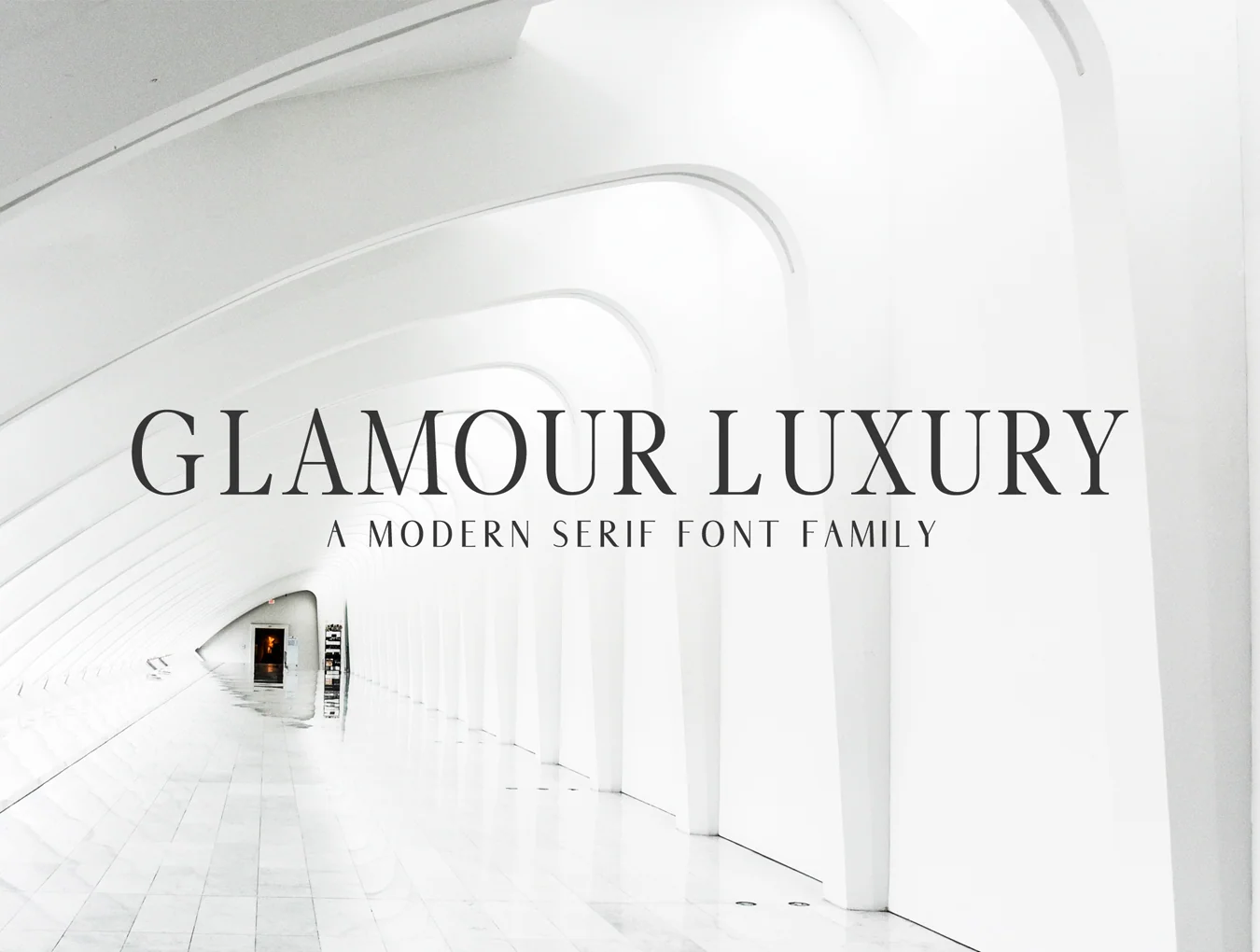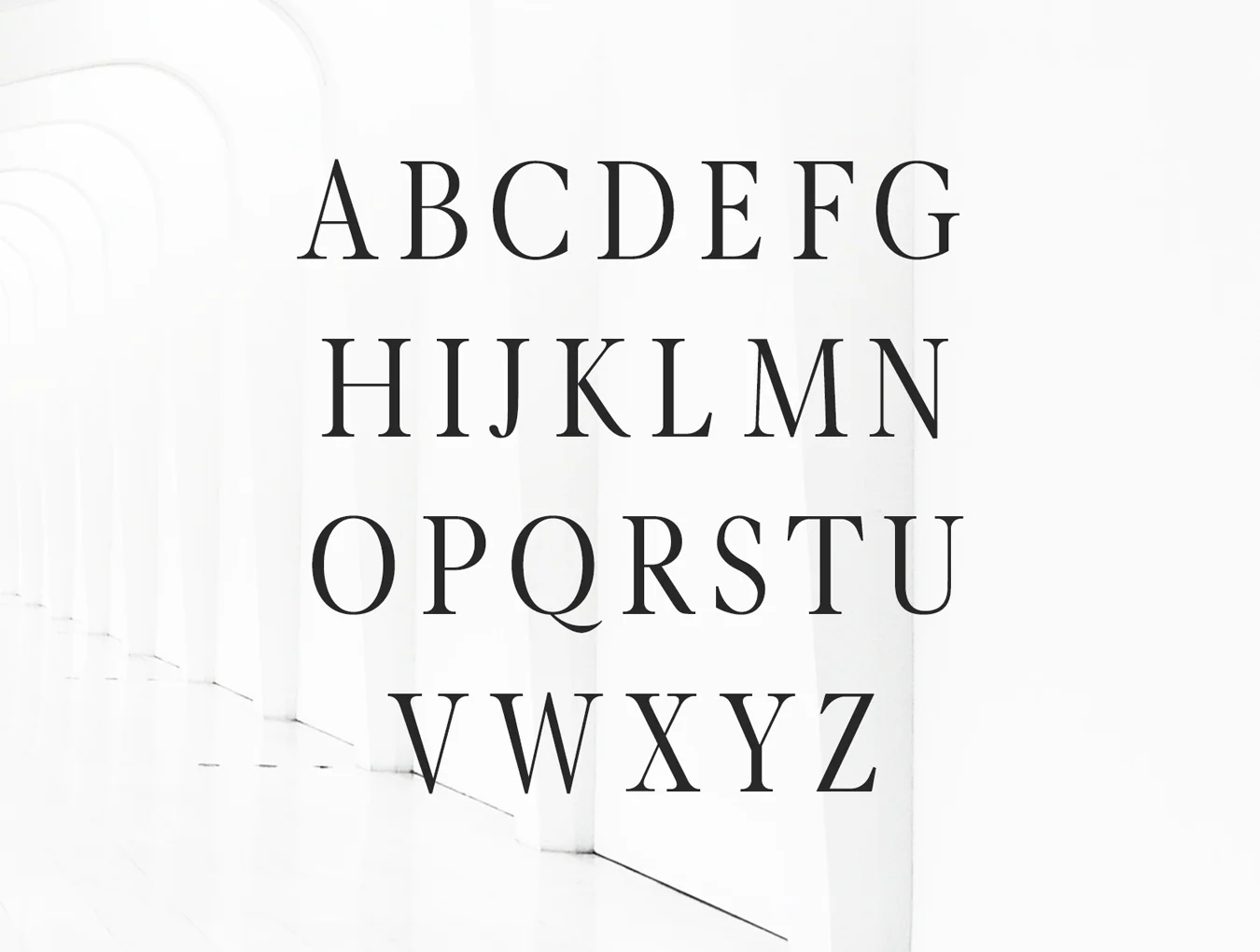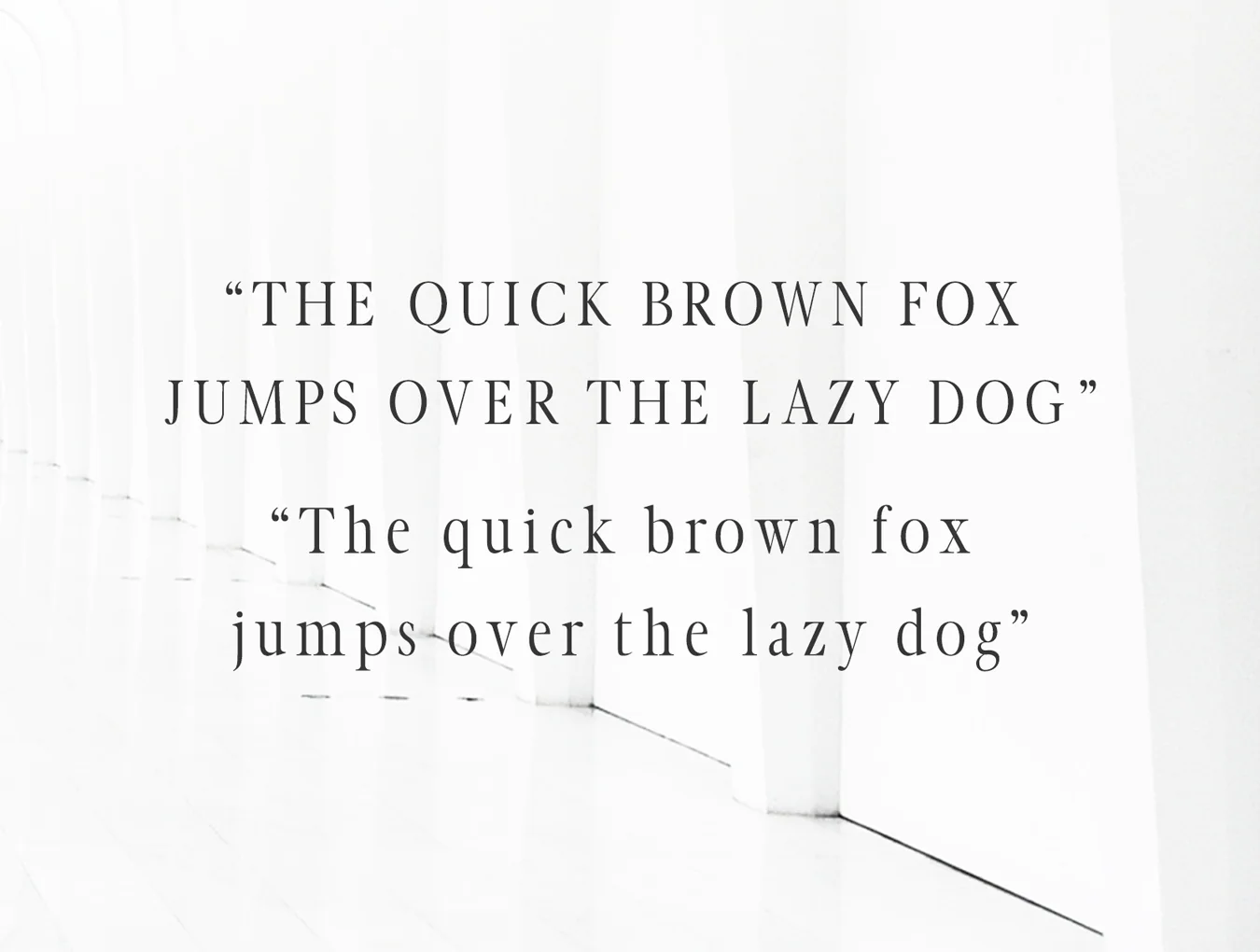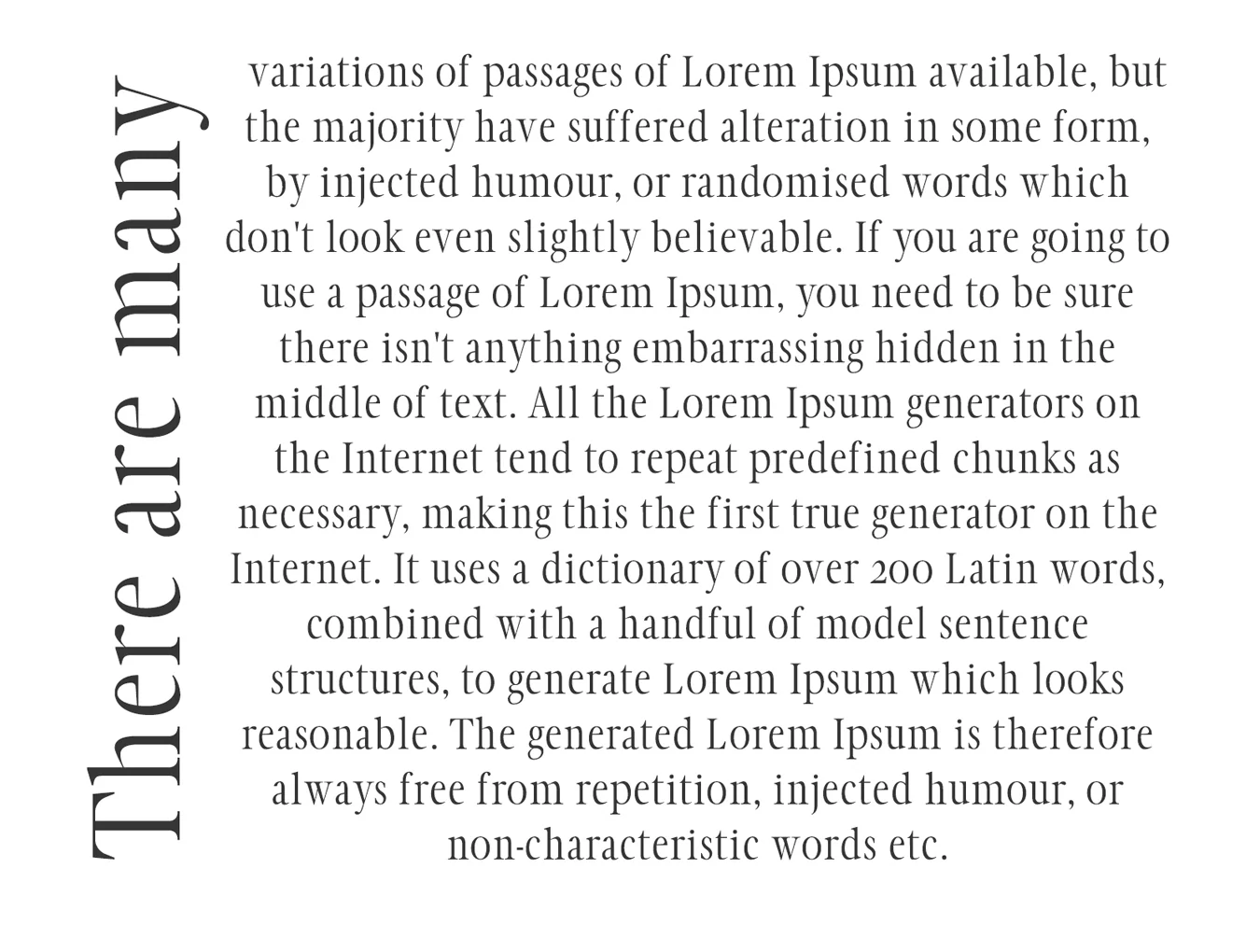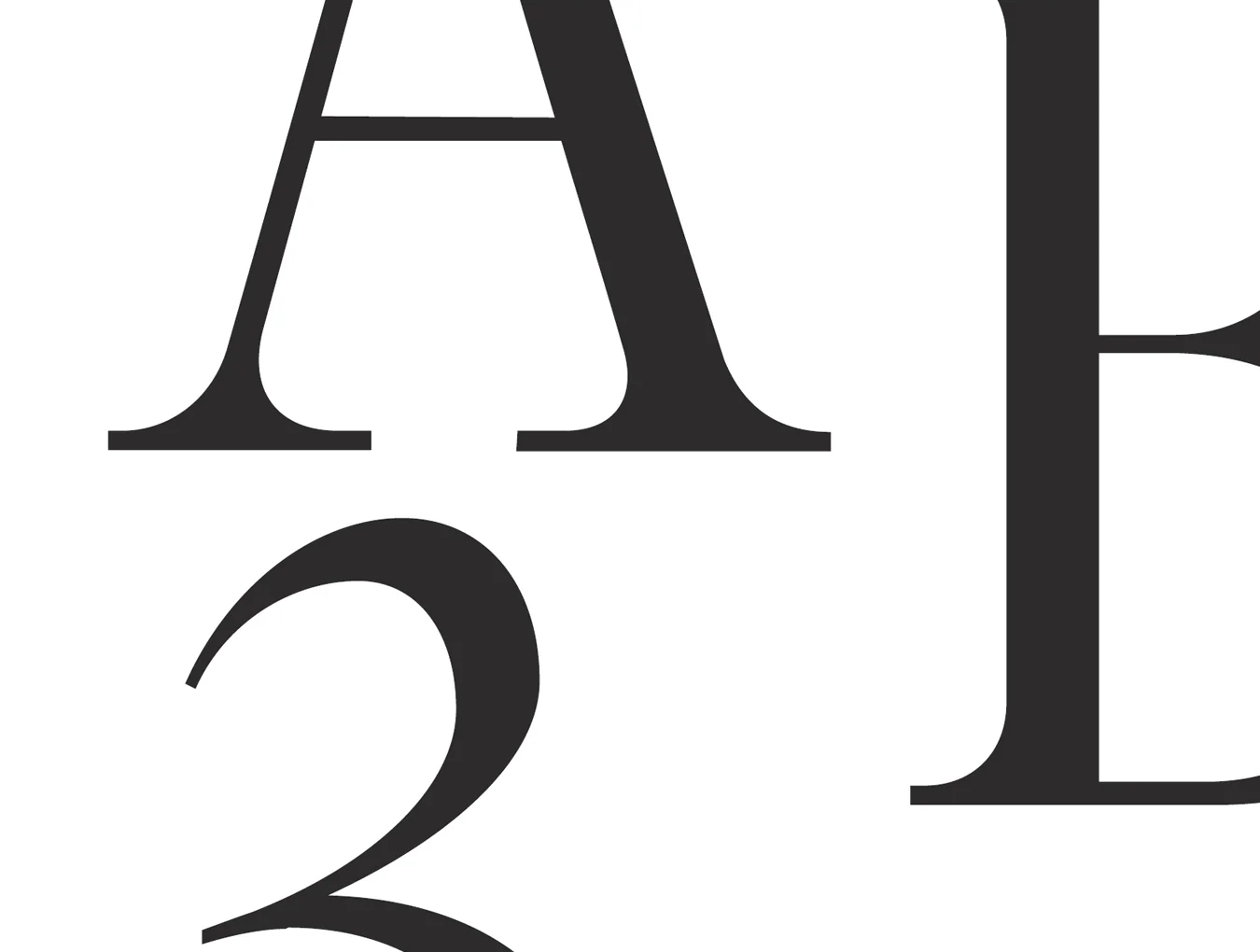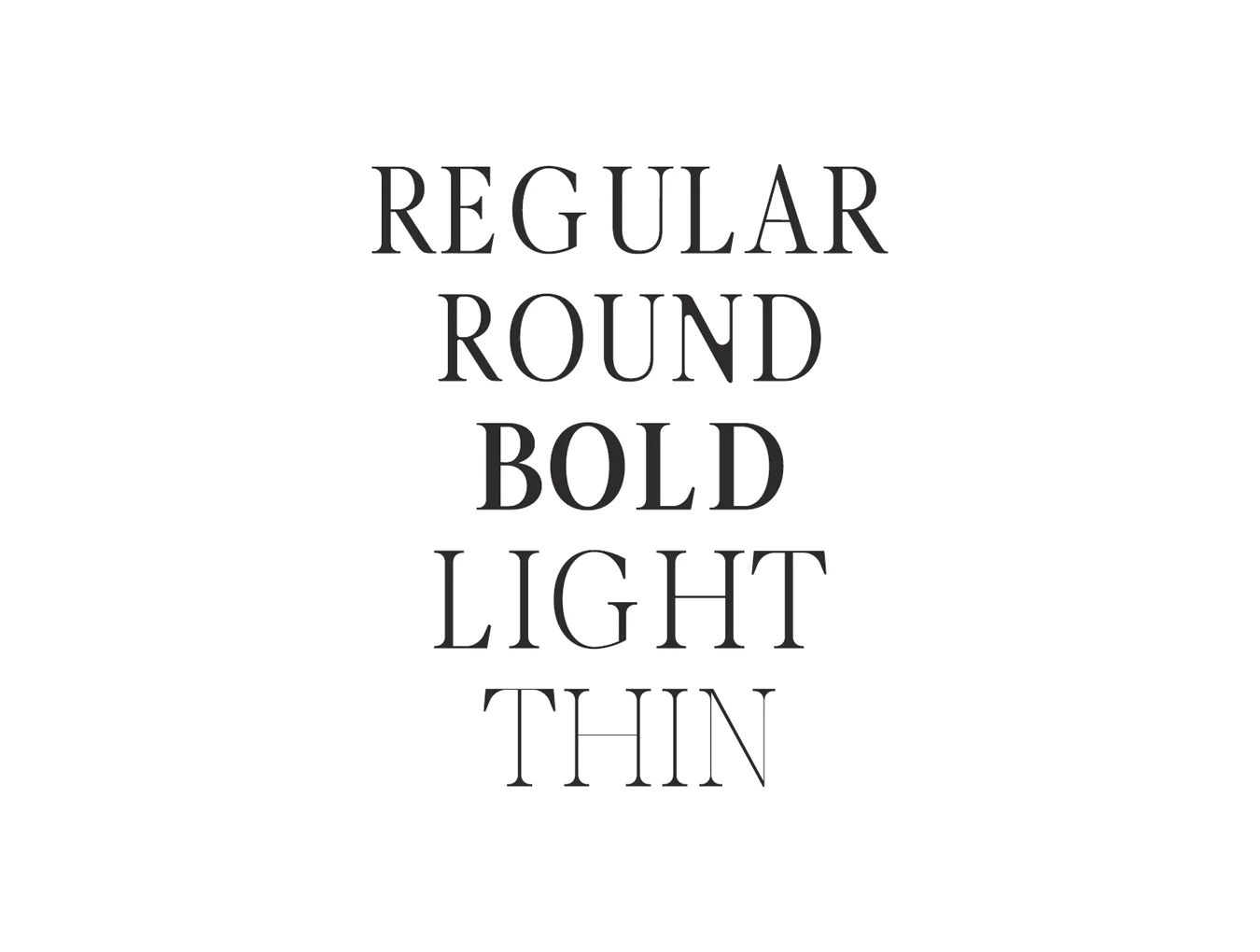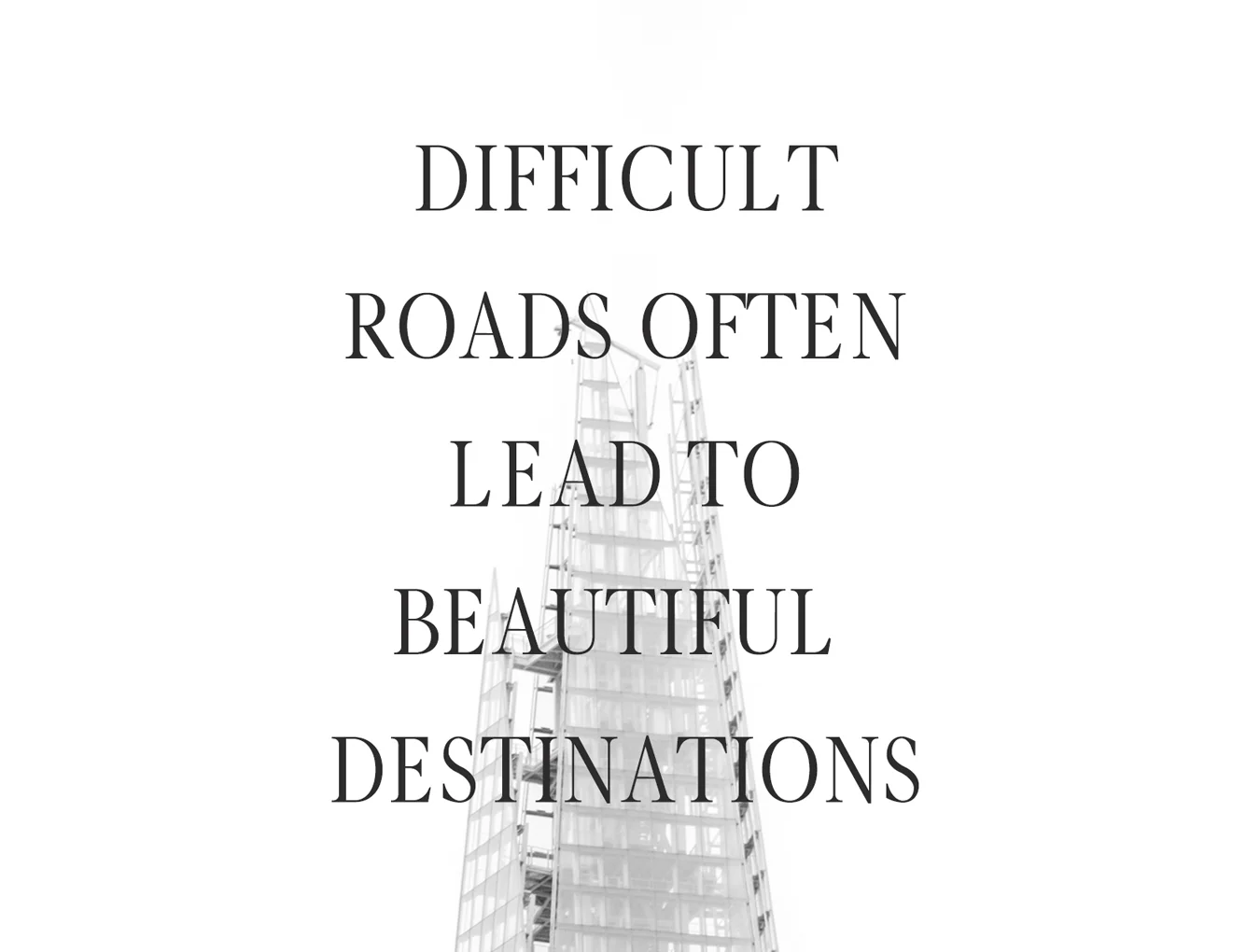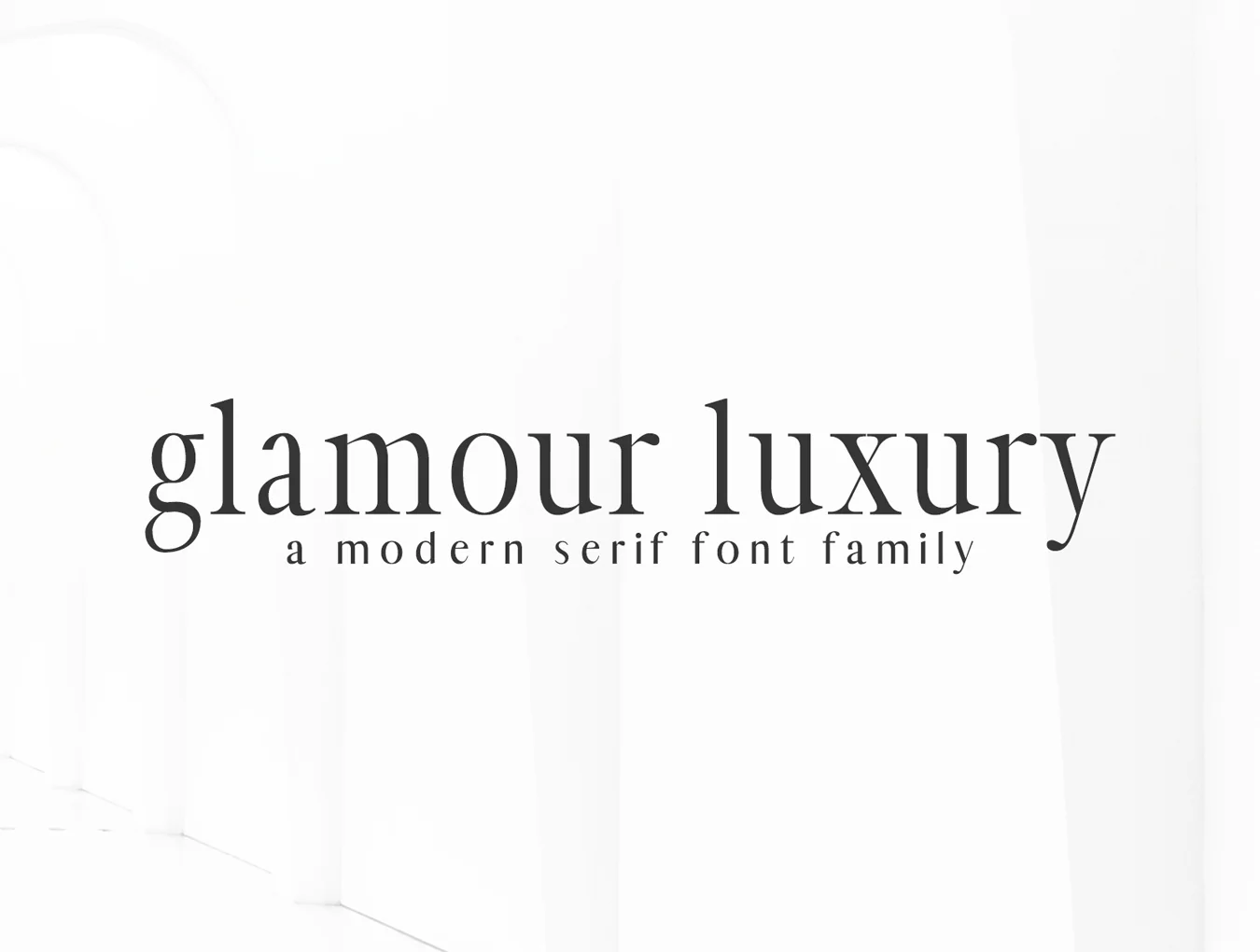
Glamour Luxury Serif Family
Elegant Contemporary Luxury Serif Typeface Set
Serif font style
Regular, Light, Thin, Rounded, and Bold styles
Glamour Luxury is a sleek minimalist serif family offering multiple weights. It supports essential glyphs and non-English characters, making it suitable for headlines, posters, branding, logos, packaging, presentations, quotes, titles, magazine headers, web layouts, ads, invitations, books, and many creative projects.